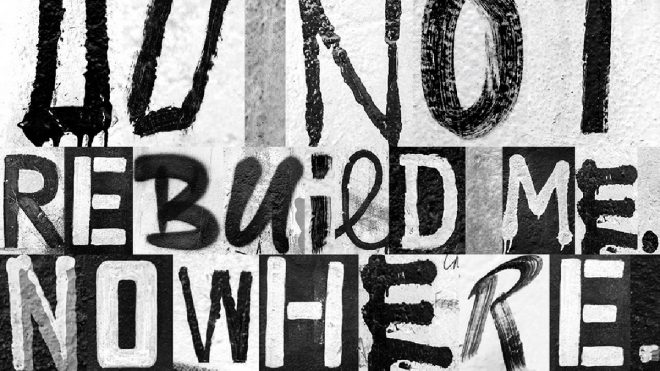
Heimat Berlin releases typeface inspired by graffiti from the Berlin Wall
Creative agency Heimat Berlin has released a new typeface inspired by the graffiti that covered the Berlin Wall before it was knocked down in November 1989. The typeface is part of a campaign to mark the 30th anniversary of the wall coming down and the agency took it as an opportunity to “send a message for freedom and against walls in the world”.
From the time the wall was constructed in 1961 up until its destruction, graffiti became a popular way for people to express their feelings about the political climate at the time and artists from all over the world came to contribute to the art on the wall.
Taking inspiration from this politically-charged, concrete canvas, Heimat Berlin asked itself the question: “If walls could talk, what would the Berlin Wall say today?” and the agency sees the resulting typeface as a way to give the wall a voice.
The process was complex as the team wanted to make it authentic. “We did an incredible amount of research and took hundreds of photos from real pieces of the wall that were still in existence,” says Matthias Storath, Chief Creative Officer at Heimat Berlin. “The process took about three months.”
A key feature of the typeface is that none of the 26 letters are the same. “For example, there is more than one ‘A’,” explains Storath. “And, of course, all of them reflect the individual character of every single human being who painted the original letter.”
The free-to-access typeface can be found at the Voice of the Wall Generator, a website that allows users to type in their own personal message which is then generated in the typeface and can be subsequently downloaded.
The campaign also consists of a book, a series of prints, and a short film. The two-minute video is ‘narrated’ by the wall with subtitles provided by the typeface, and depicts the suffering the wall created. At the end, it solemnly warns: “Division is freedom’s biggest threat.”
The campaign was created in collaboration with non-profit street art association, The Cultural Heirs, an organisation that campaigns against violence and is committed to integration and the prevention of discrimination and inequalities in society.
“I think the most important message we want to share is to make people more aware that freedom is not given. We should never take it for granted. We have to fight for it every single day,” says Storath. “We hope the typeface is a fitting testament to the people of Berlin and beyond who experienced the wall in their daily lives – and of course all the people who used it as a canvas for their own messages of hope and protest.”